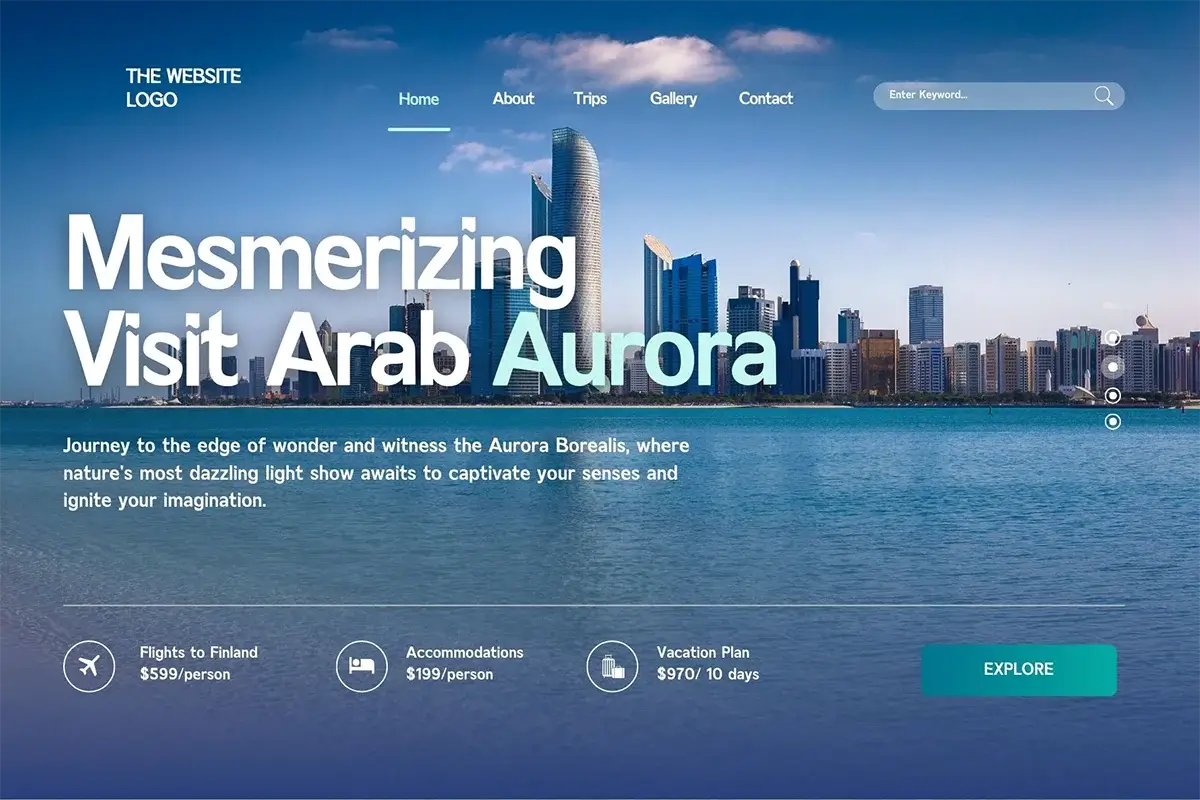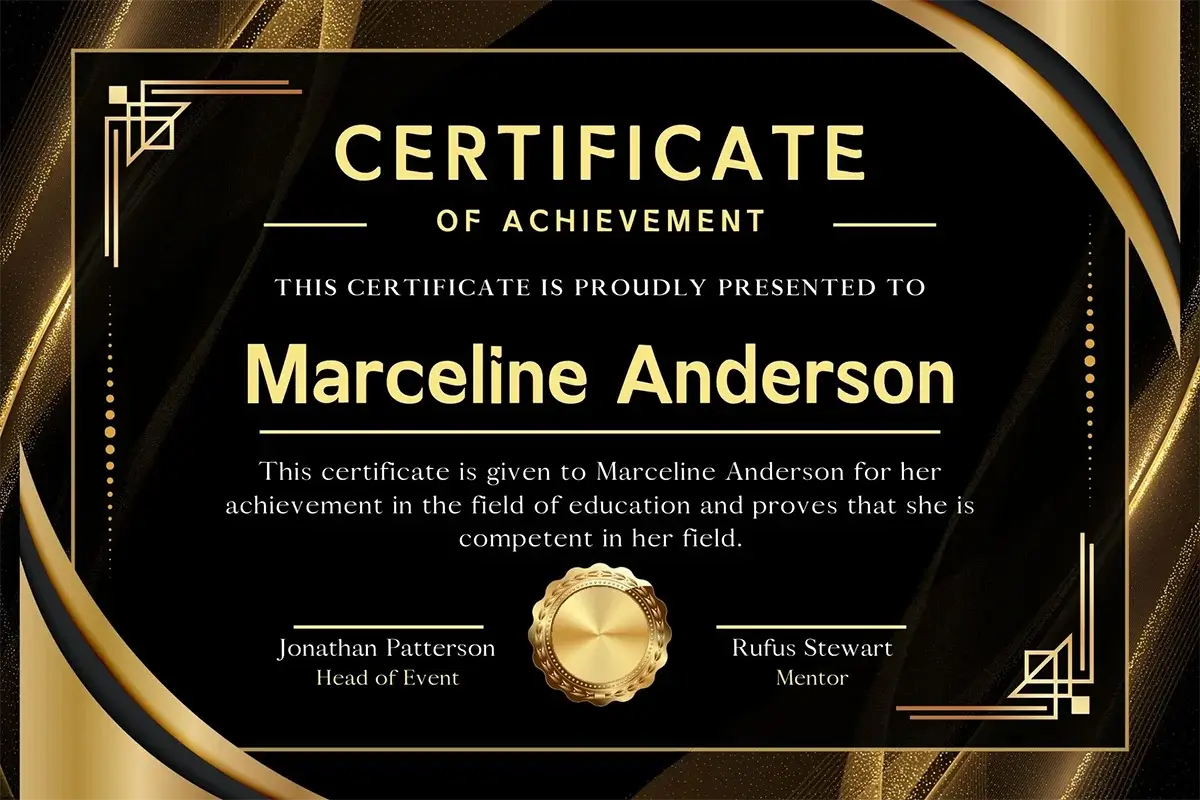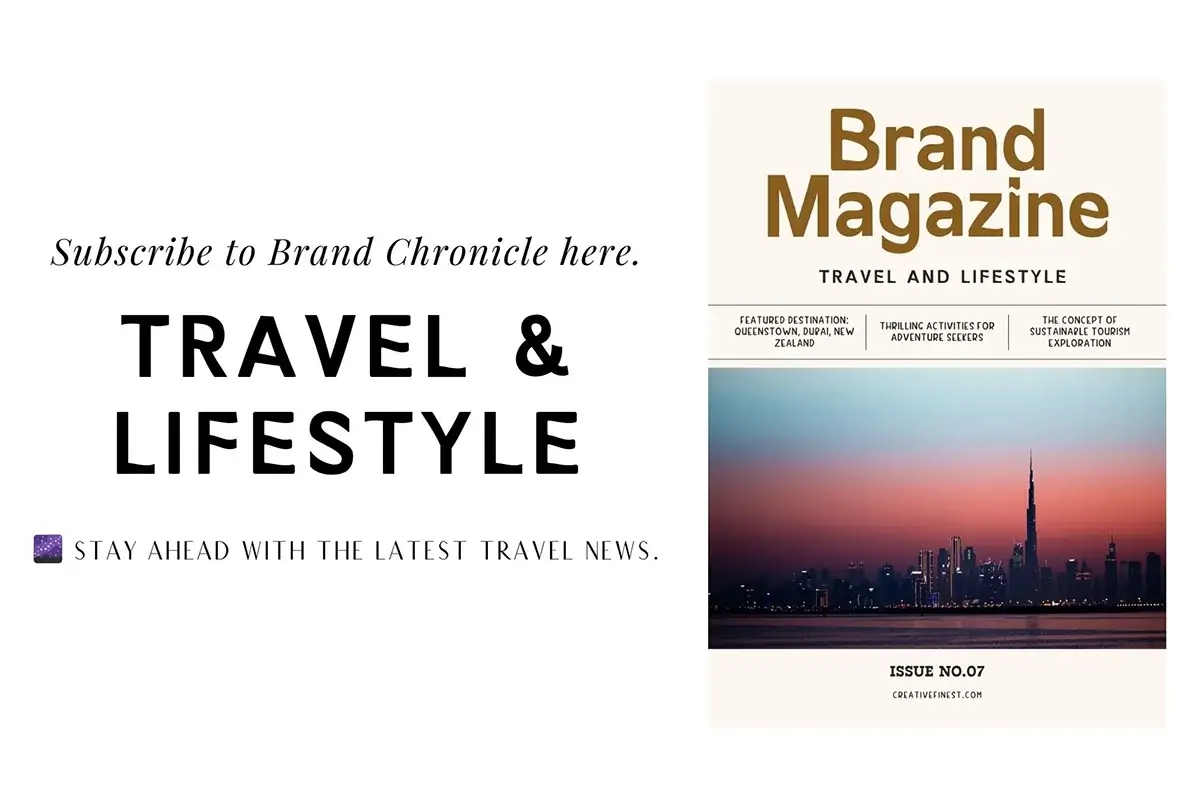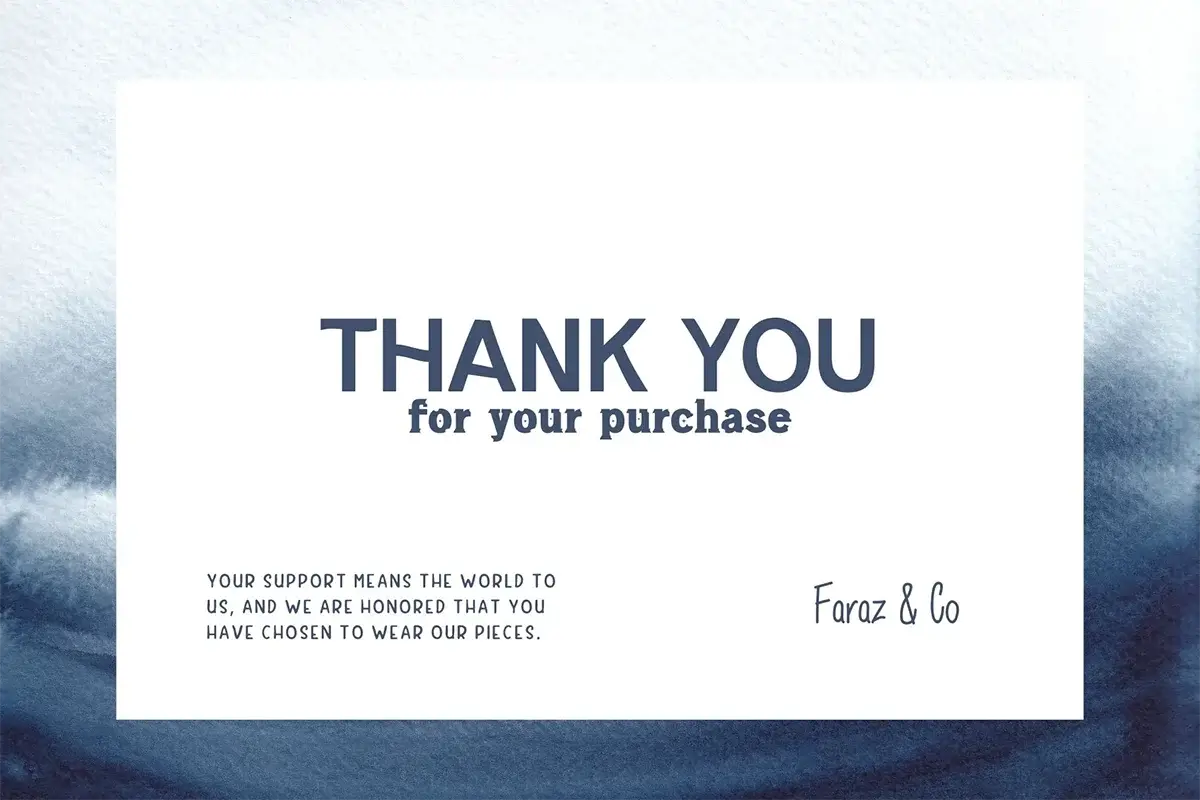
Arabian Storm Display Font
Arabian Storm Display Font is a strong and exciting typeface that shows the feeling of adventure and movement. Inspired by the fast winds of the desert, this font’s bold shapes and sharp edges give it a look that feels both powerful and modern. It’s great for making logos, posters, and branding that stand out.
This font works well for travel and leisure branding, where adventure and exploring new places are important. Its bold but elegant look shows the fun of visiting new places and seeing the world. From travel company logos to product packaging, Arabian Storm brings the excitement of journeys and the beauty of faraway places. It’s the perfect choice for any brand that wants to show the feeling of wanderlust and luxury.